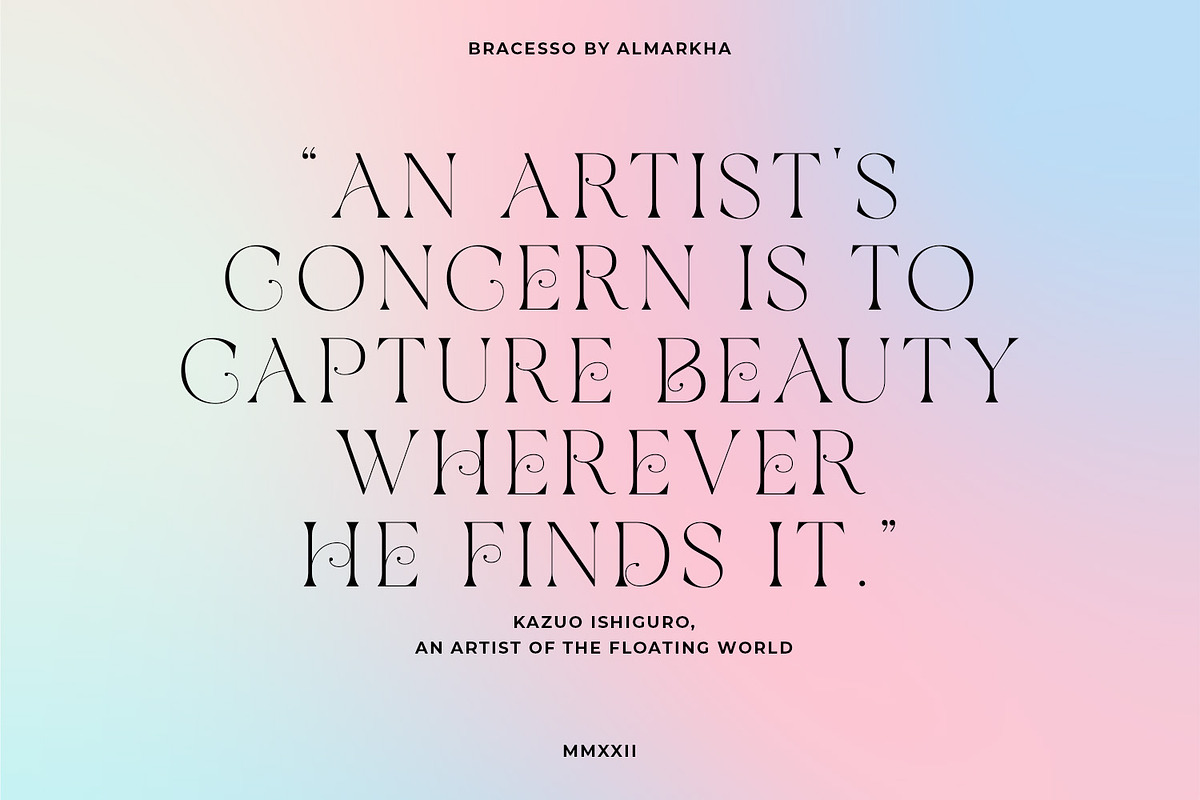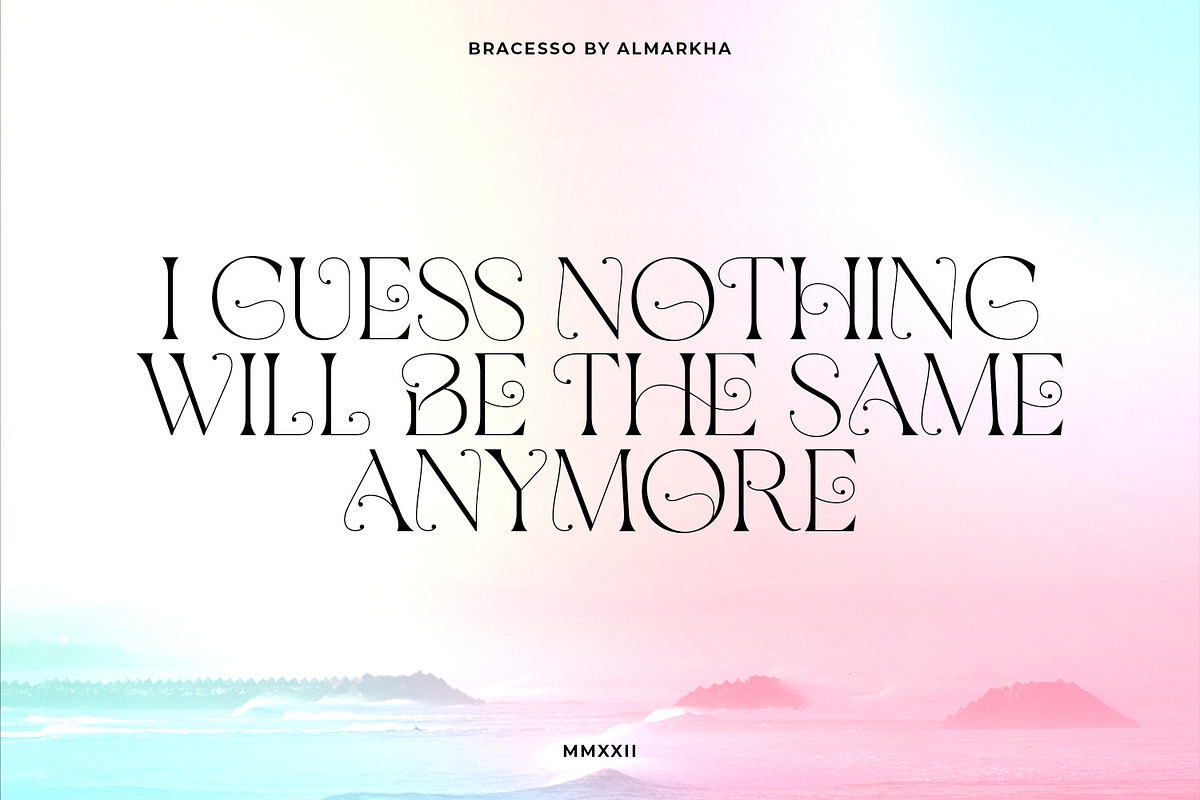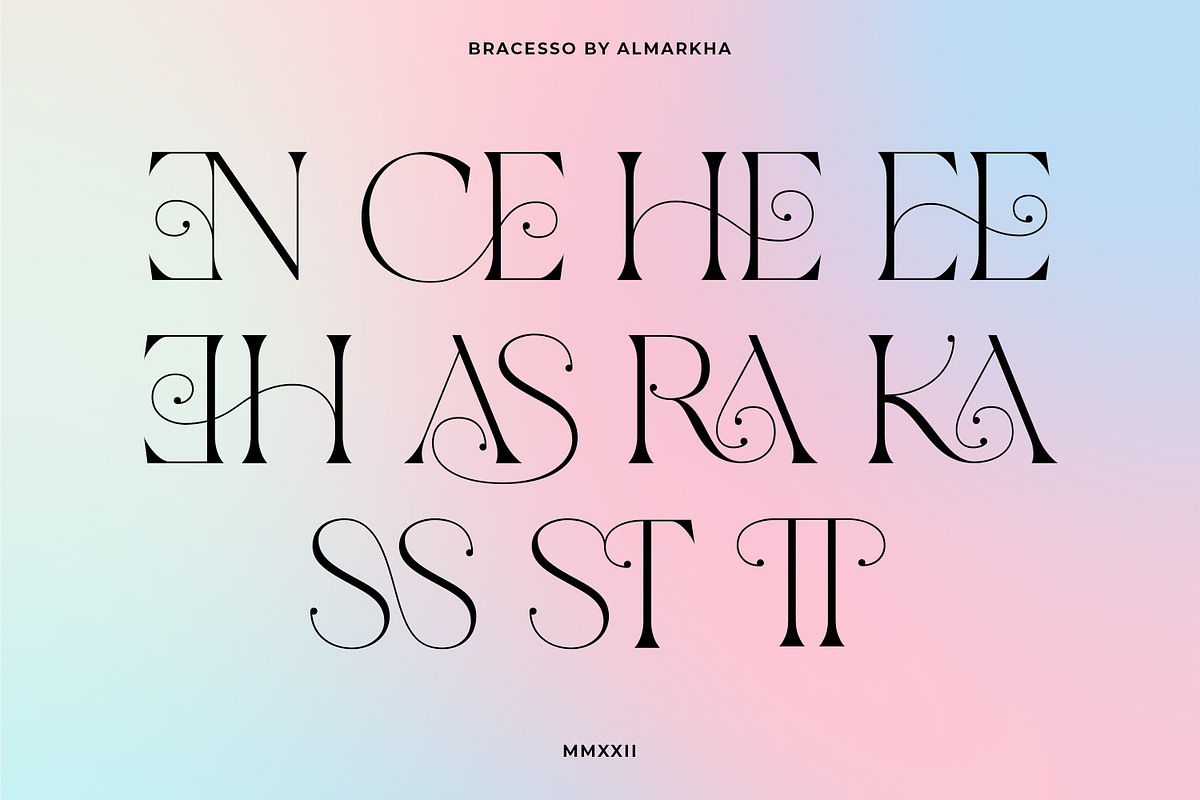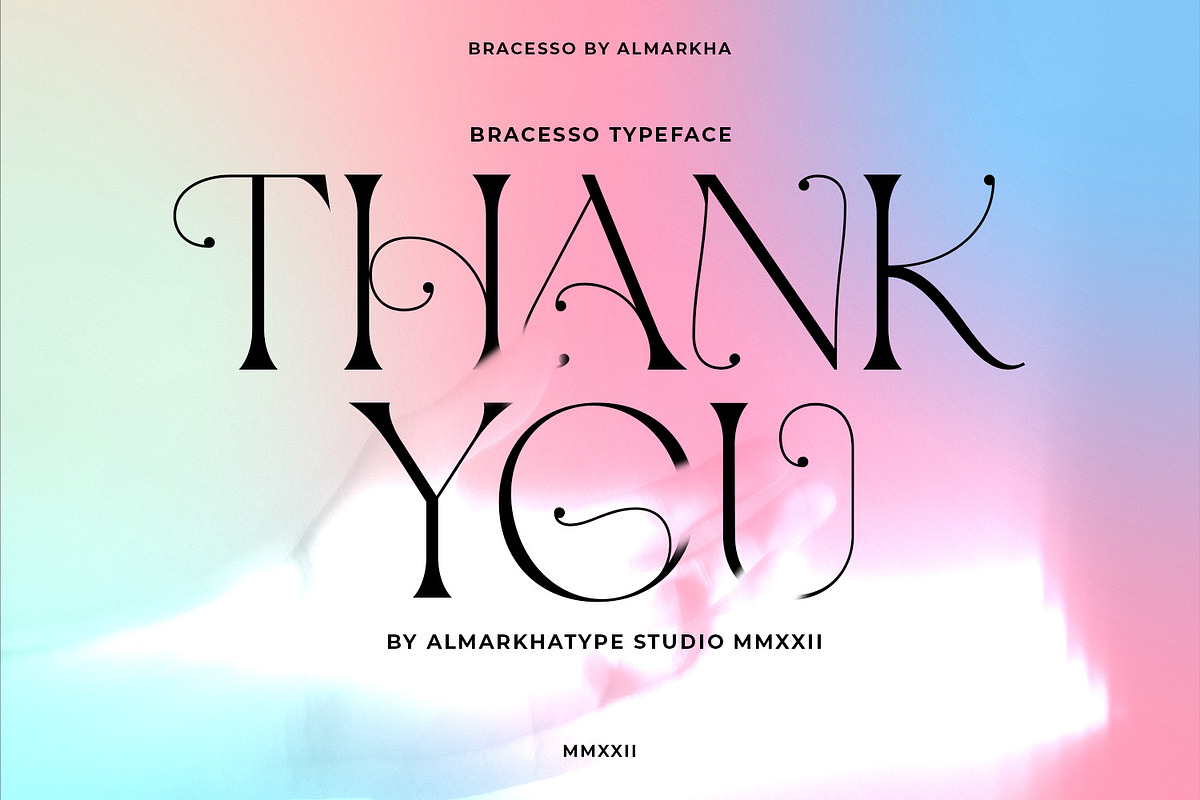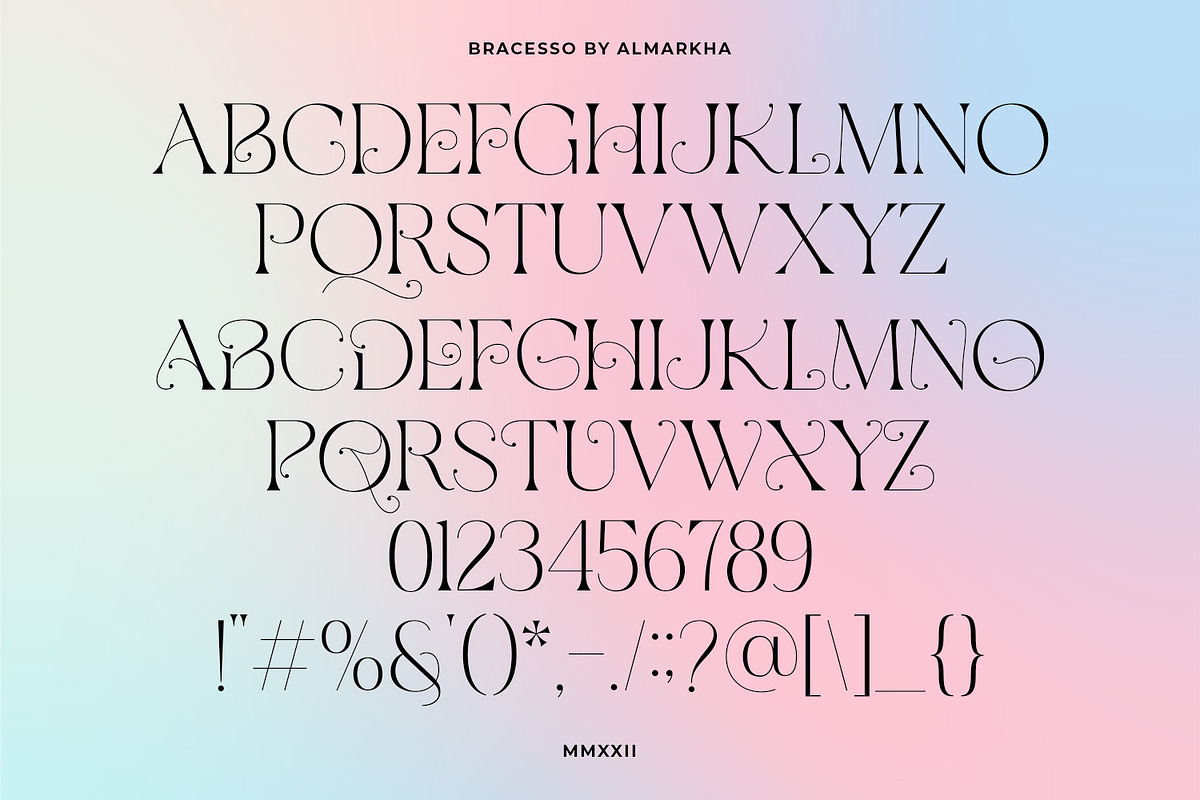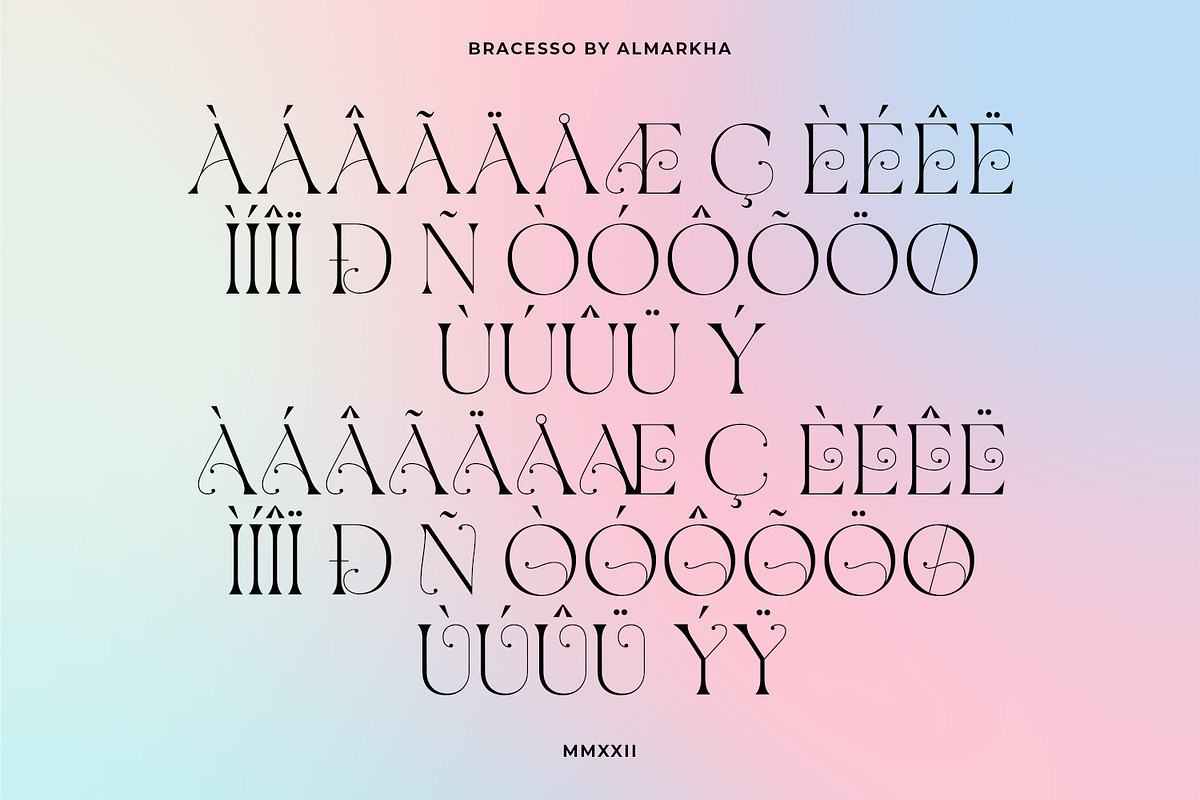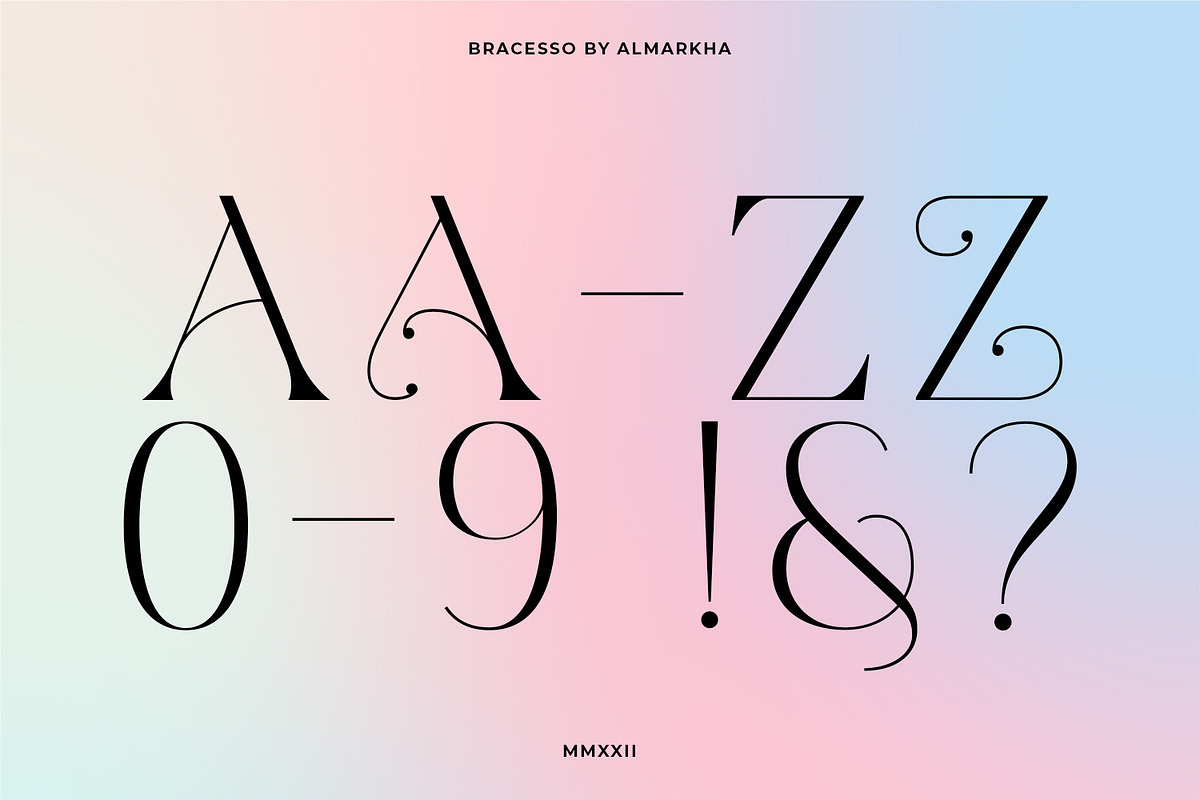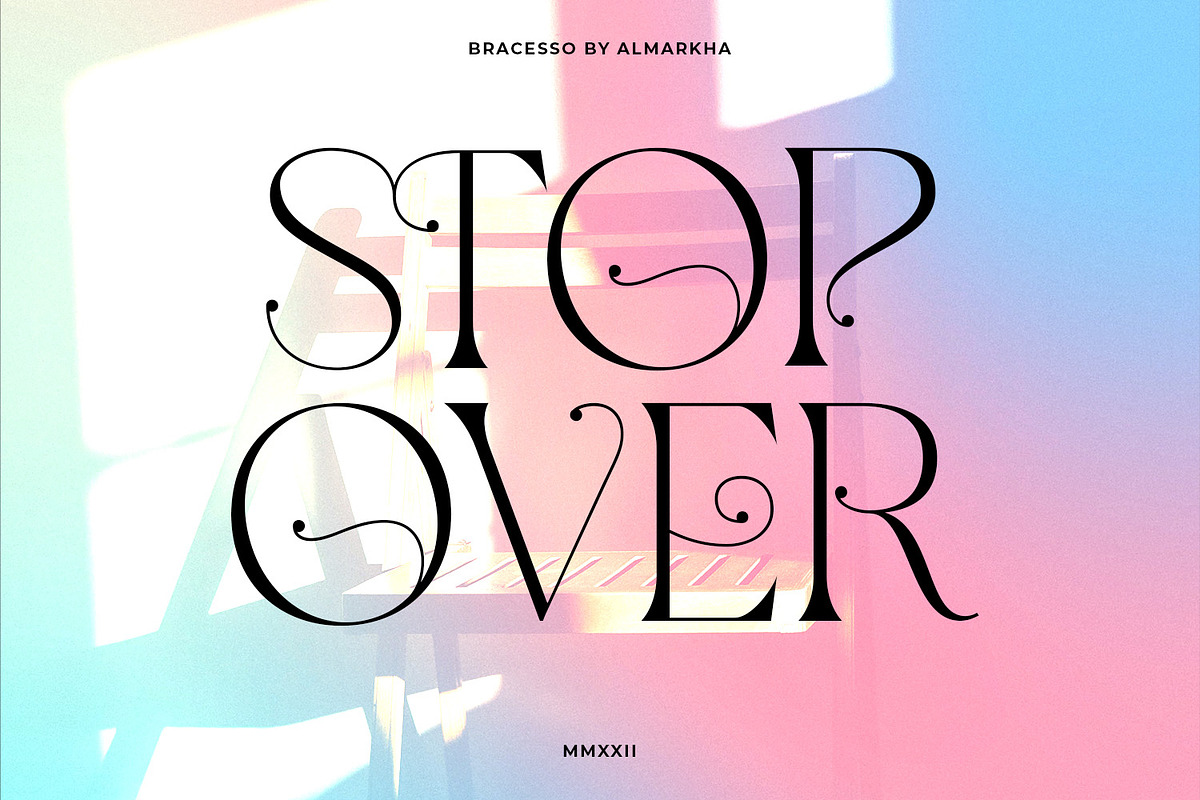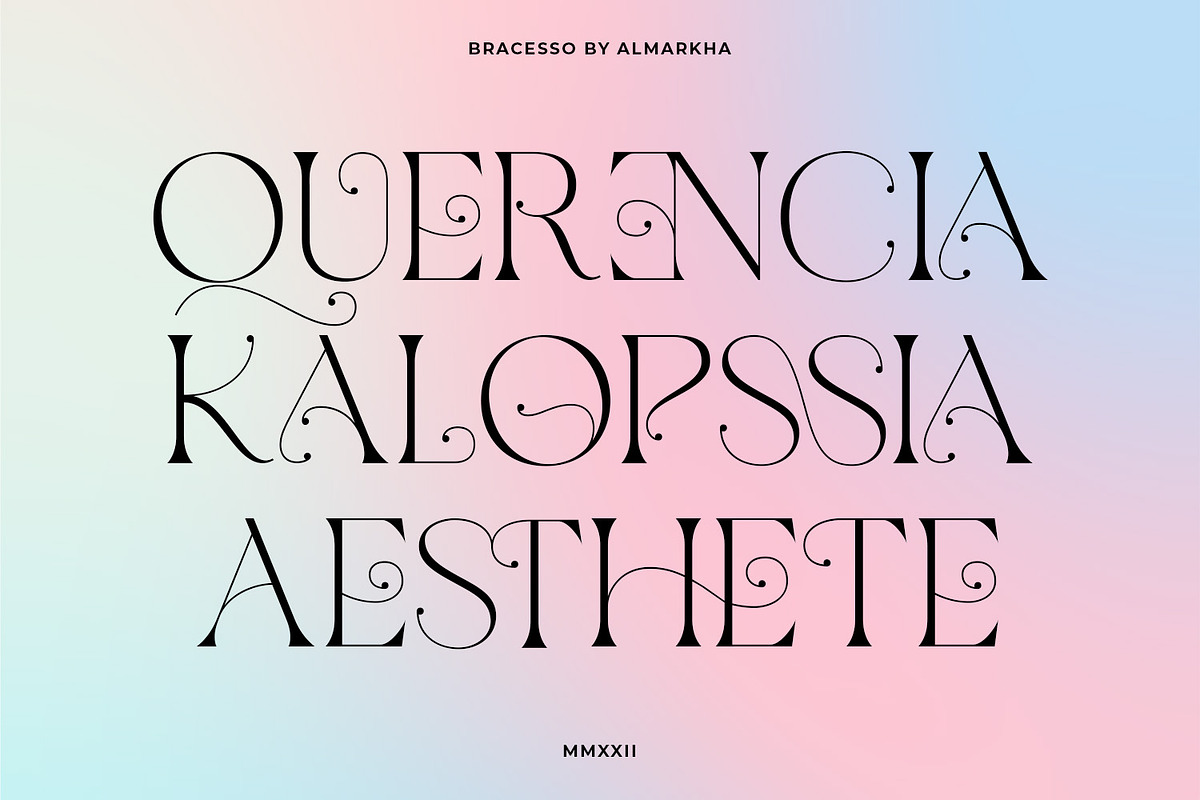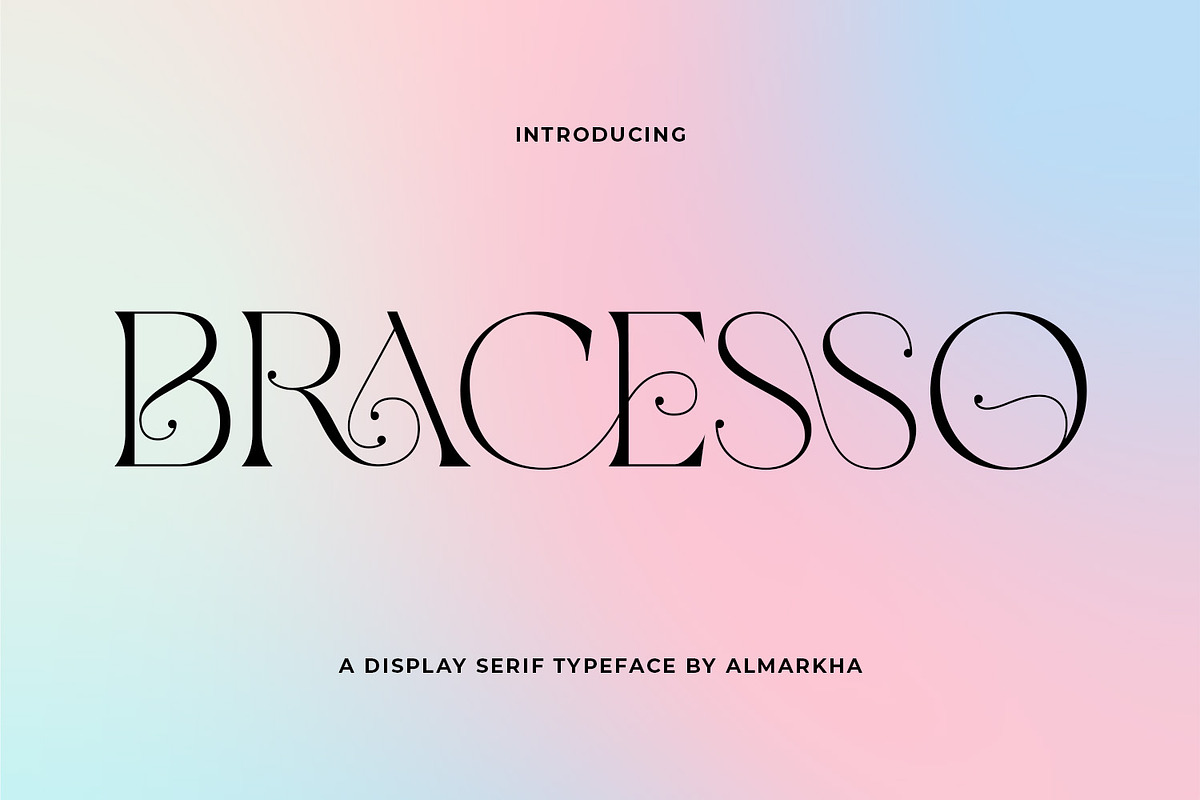
Bracesso - Stylish Display Serif
Hello Introducing, Bracesso - Stylish Display Serif is an unique font that uses ligatures to smoothly link letters. Perfect for adding a unique twist to word-mark logos, monograms or pull quotes. Bracesso has 11 ligatures as well as numbers and punctuation making it super fantastic. Ligature can be turned off if required standard writing needs. What's Included :